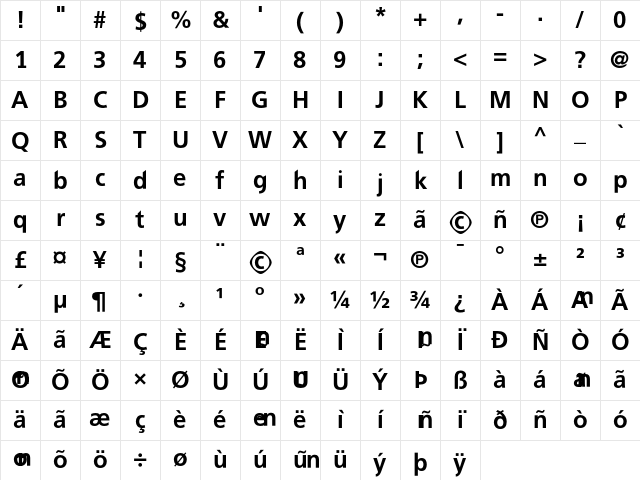
FreewayDemi Regular
Design Context for FreewayDemi
FreewayDemi is a composed and adaptable typeface that performs quietly and consistently across a wide range of design contexts.